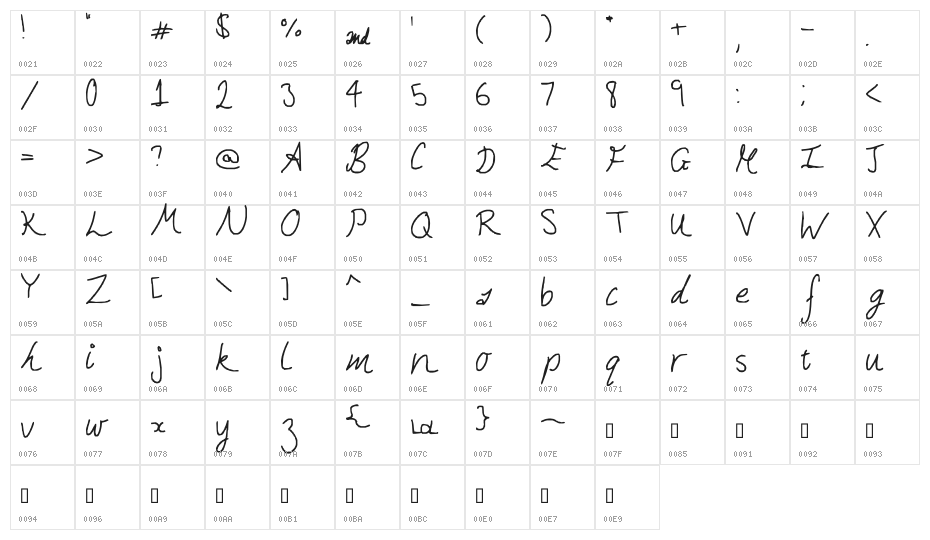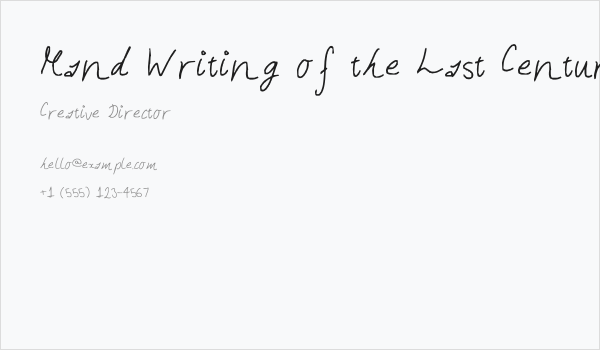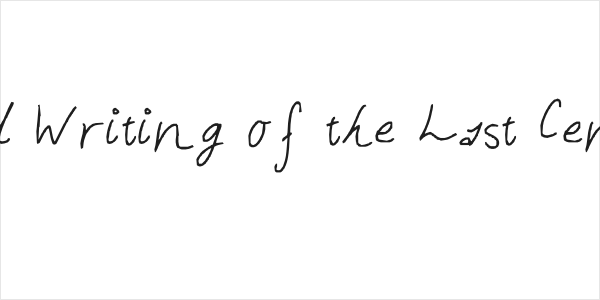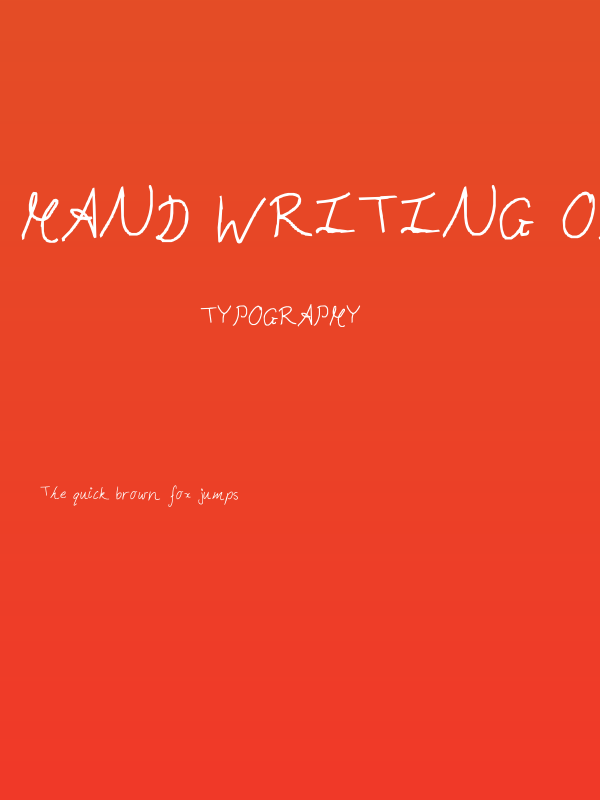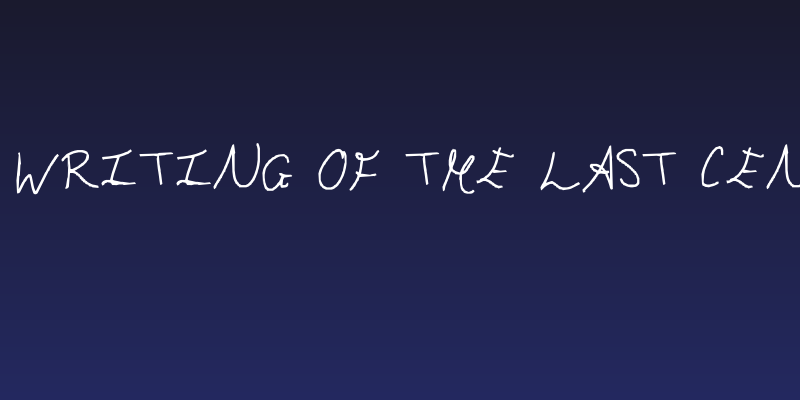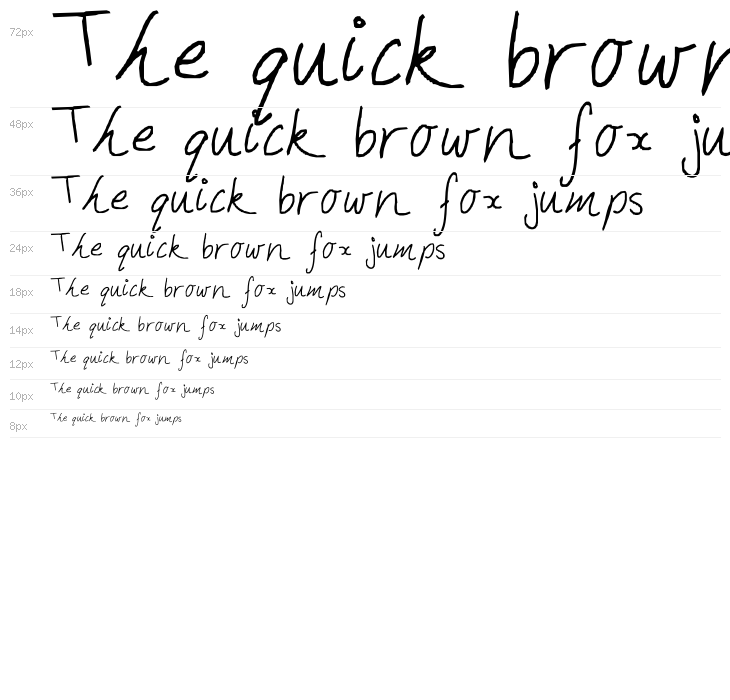
Hand Writing of the Last Century Font
Hand Writing of the Last Century Description
This font exudes a classic handwritten style reminiscent of traditional penmanship from the past century. The uppercase letters are elegantly crafted with a slight slant, giving them a dynamic and fluid appearance. The lowercase letters maintain a consistent flow, with some characters featuring distinctive loops and curves that enhance the handwritten aesthetic. The numerals are bold and clear, ensuring readability while maintaining the overall style. Special characters are thoughtfully integrated, complementing the alphabet with their unique yet cohesive design. This font captures the essence of vintage handwriting, making it suitable for projects that require a personal and authentic touch.
| Use Case | Logos, Invitations, Artistic Projects |
| Proposed Projects | Ideal for wedding invitations, personal letters, vintage-themed branding, and artistic projects that require a personal touch. |